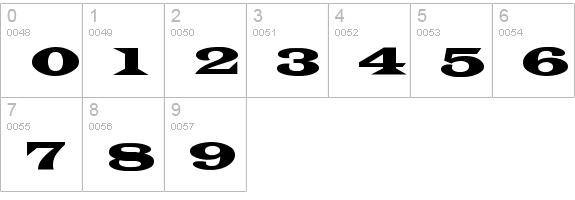
James-Wide is a distinctive, extended-width variant in the James typeface family \xE2\x80\x94 well suited to design and typography projects.
Introducing James-Wide, a striking and versatile font that effortlessly combines a modern aesthetic with a touch of classic elegance. Designed with legibility and versatility in mind, this font is perfect for a wide range of design projects, from sleek logos and branding to eye-catching headlines and captivating posters. James-Wide features clean lines and a bold, commanding presence that demands attention. Its wide letterforms exude confidence and strength, making it an ideal choice for projects that require a bold and impactful visual statement. But what truly sets James-Wide apart is its incredible versatility. Whether you're designing for print or digital, this font adapts seamlessly to any medium. Its carefully crafted letterforms ensure clarity and readability, even at small sizes or low resolutions. And the best part? James-Wide is absolutely free! That's right, this exceptional font is freely available to download at FontsMarket.com. Now you can elevate your designs without breaking the bank. So why wait? Download James-Wide today and unlock a world of creative possibilities. Whether you're a seasoned designer or just starting out, this font will become an invaluable tool in your typography arsenal. With its sleek and modern aesthetic, combined with its timeless elegance, James-Wide is sure to make a lasting impression on any project.